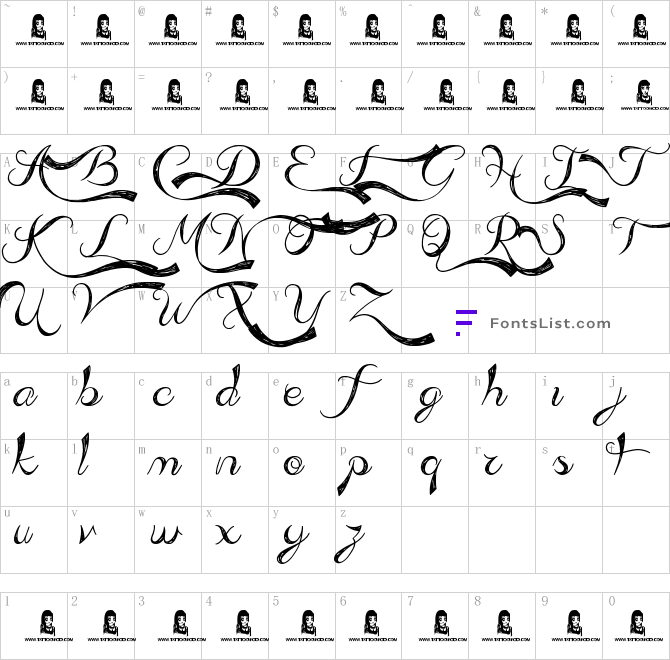
- Font Name:Admiration Pains
Admiration-Pains-.ttf is a very beautiful artistic font, Admiration-Pains-.ttf is widely used in the design and printing of various books and pictures,Admiration-Pains-.ttf has a strong visual impact,Admiration-Pains-.ttf is a commonly used font in newspapers, magazines and books, and is used in posters, e-commerce Poster design, store design, logo design, font design and other fields.Admiration-Pains-.